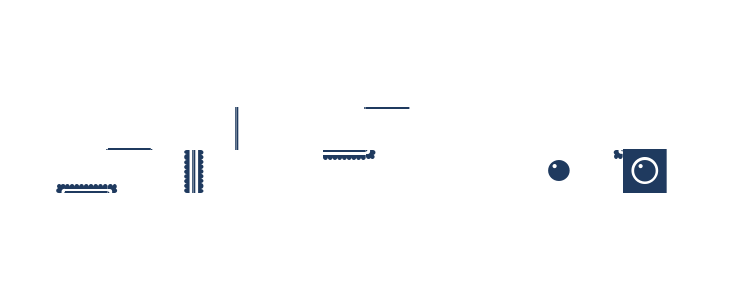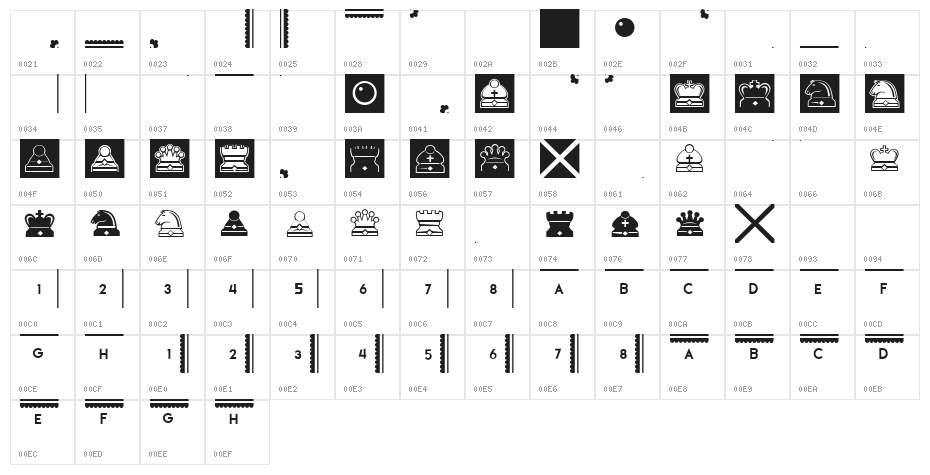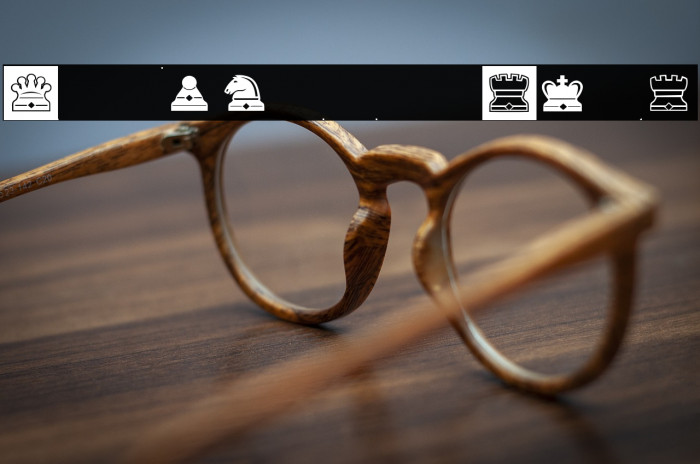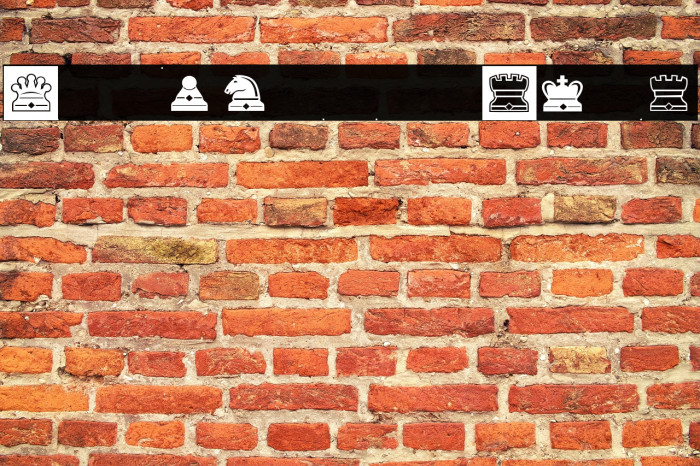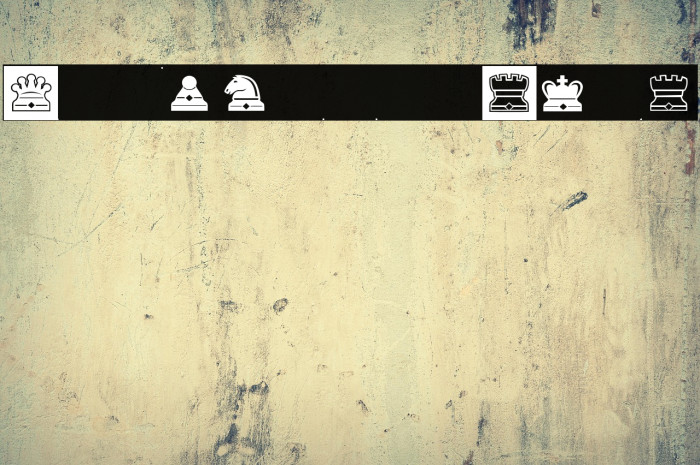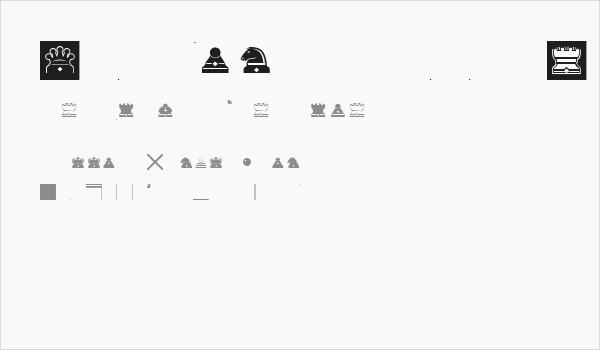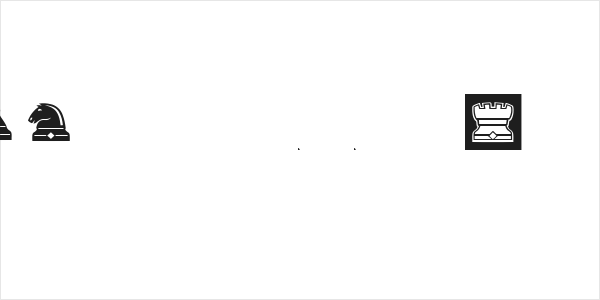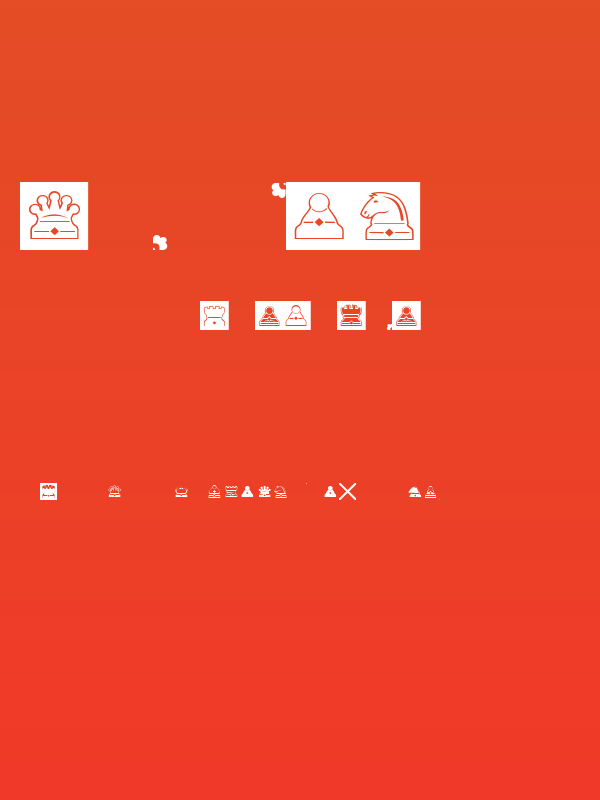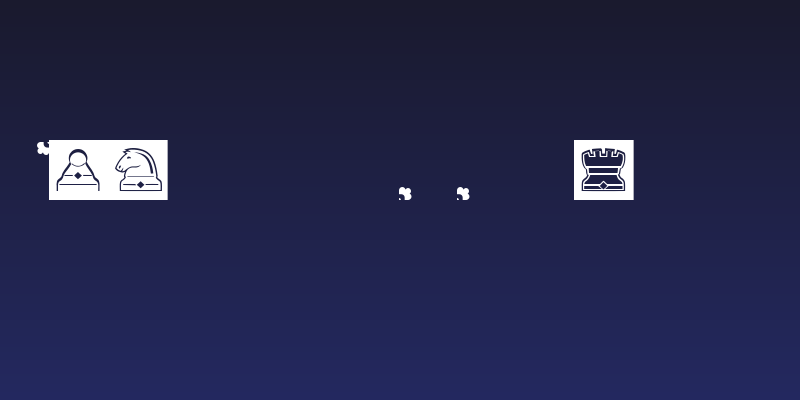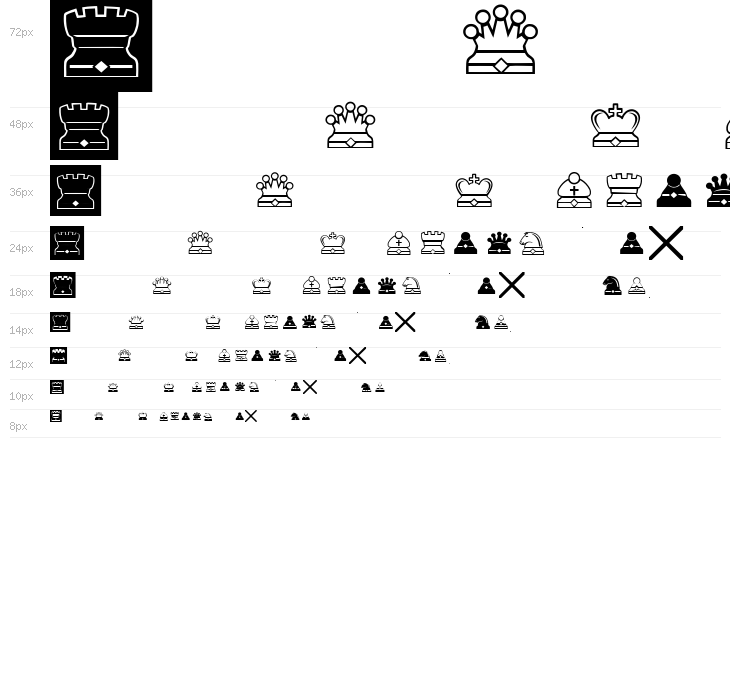
Wisdom Chess Regular Font
Wisdom Chess Regular Description
A decorative font featuring stylized chess piece icons, including kings, queens, bishops, knights, rooks, and pawns, rendered in both outlined and filled styles with geometric bases and clear, bold lines.
| Overall Style | Decorative, Modern |
| Use Case | Icons, Game interfaces, Themed graphics |
| Proposed Projects | Board game designs, chess apps, educational materials, themed posters, infographics. |